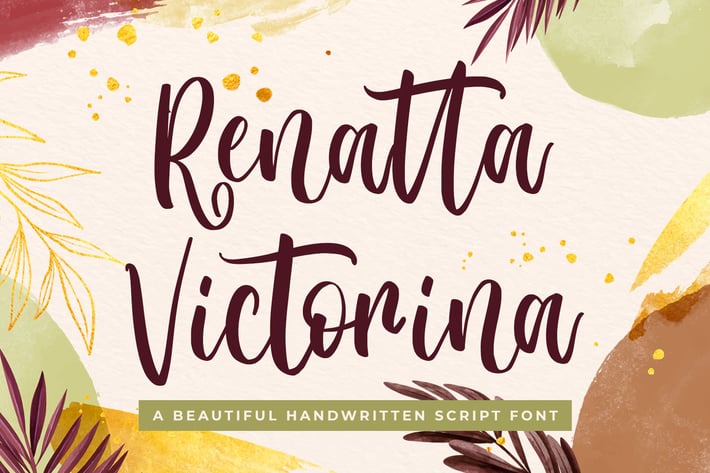
Renatta Victorina - Modern Script Font
Renatta Victorina is a beautiful handwritten script with a natural & stylish flow. This font has a multitude of natural-looking ligatures in its OpenType features - making the font look as close to natural handwriting as possible. This collection of scripts is perfect for personal branding.
Renatta Victorina Font is perfect for many different projects such as logos & branding, invitation, stationery, wedding designs, social media posts, advertisements, product packaging, product designs, label, photography, watermark, special events or anything.